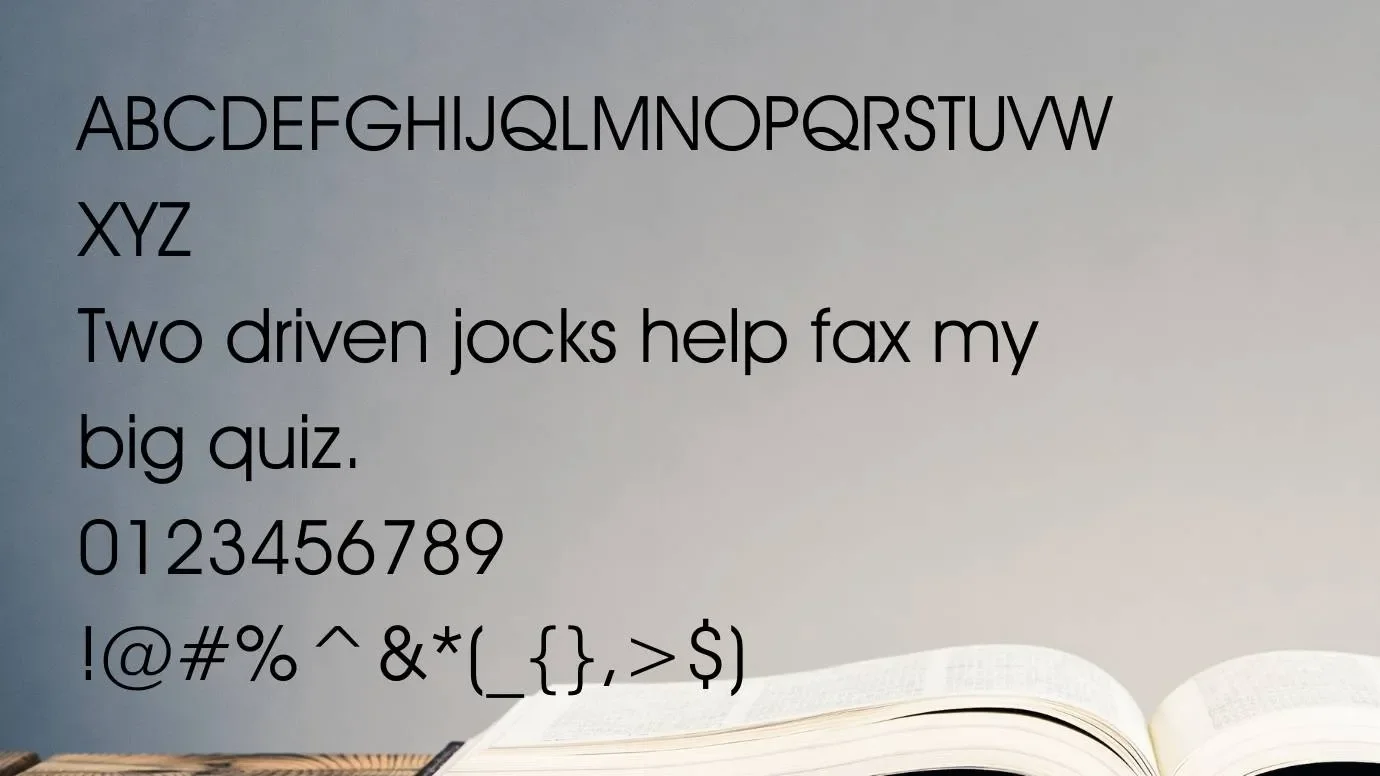
We have a very stunning sans serif typeface family named Avantgarde BK BT Font that provides extended features and styles for your modern designs. This font was designed by an unknown designer but you can buy its license from many authorized websites. Besides, this font family was created in 4 styles and 3 weights which are Book BT Oblique, Book BT Demi Oblique, and Demi Oblique BT. It is a complete typeface for increasing the eligibility of your designs.
In the typeface market, it is a high-quality typeface that has the greatest OpenType features, many alternatives, 250 rare glyphs with 1024 units per em, texture ligatures, standard glims, and swashes that support multilingual. Every weight of this font comprises 294 defined characters including uppercase, small case, punctuation marks, superb numbers, currency symbols, updated icons, and lots of special characters.
Reason to Use Avantgarde BK BT Font
The specialty of this typeface is that it is a straightforward font that can be easily utilized for creating stunning designs and is even great for texture content. It is going to be suitable for your web pages, magazine covers, posters, business and invitation cards, logos, templates, themes, social media posts, Powerpoint presentations, and advertisement purposes.
Due to its clean and soft textures, you can also utilize it for creating big or short texts as well as any size text. It is also the best fit for your product titling, post descriptions, general reports, quotes, magazine and Newspaper headings, utility bills, assignments, website headers and footers, official documents, or simply place texts on colorful backgrounds.
Avantgarde BK BT Font Family (Includes Total 4 Typeface)
- AvantGarde Regular
- AvantGarde Book BT Oblique
- AvantGarde Book BT Demi Oblique
- AvantGarde Demi Oblique BT
Who created Avantgarde BK BT Font?
This typeface is a great sans serif typeface for your upcoming precious projects, designed and shared by an unknown designer.
What is Avantgarde BK BT typeface?
This is a high-quality sans serif typeface that comes in 4 styles and 3 weights which are Book BT Oblique, Book BT Demi Oblique, and Demi Oblique BT.